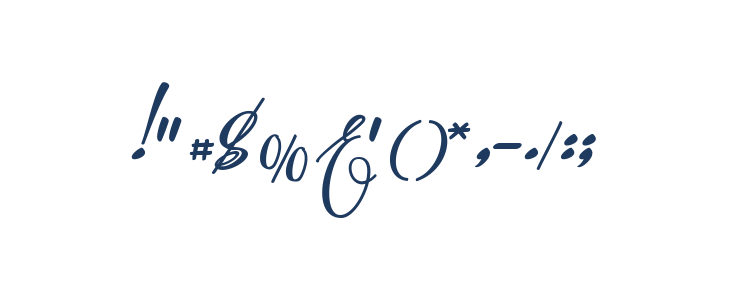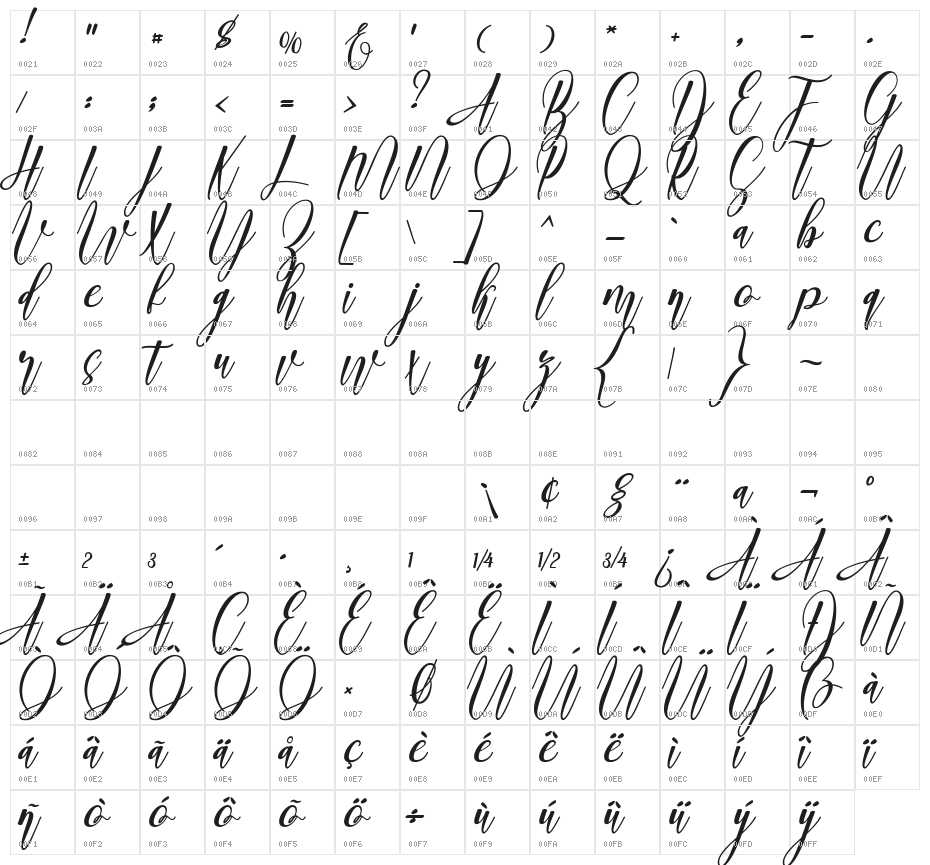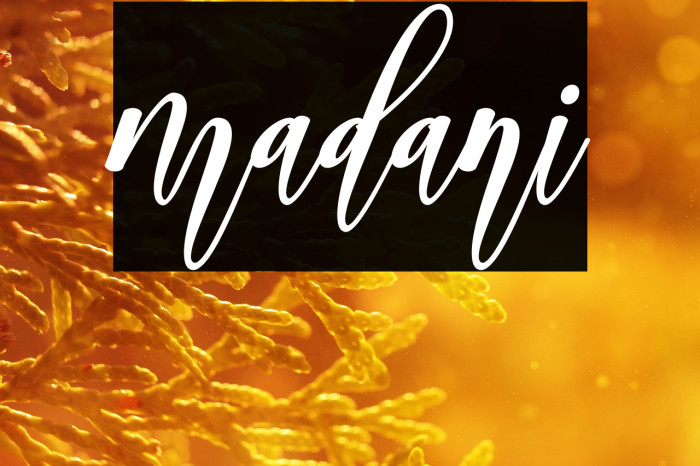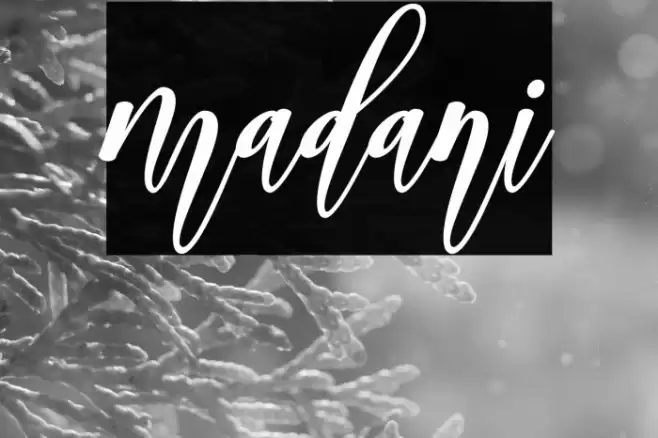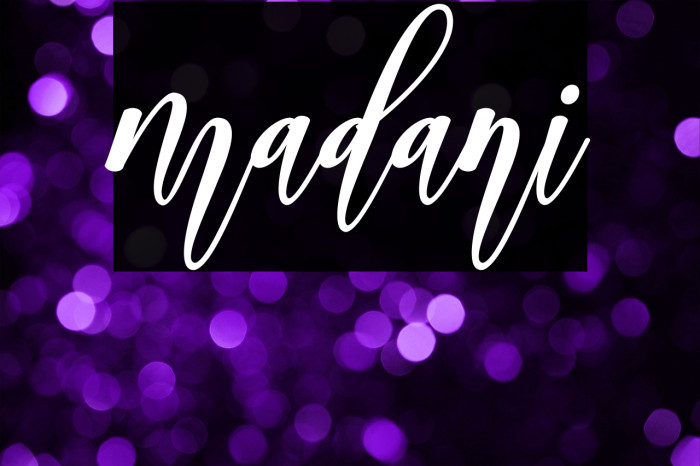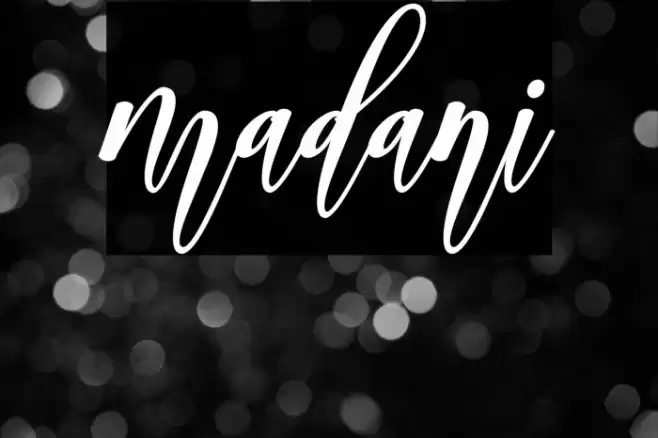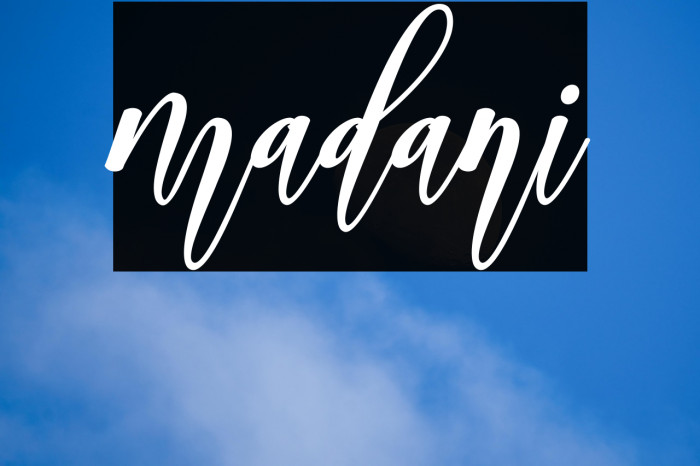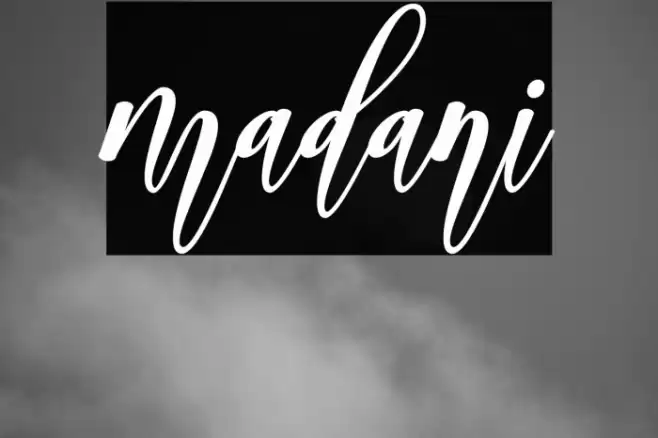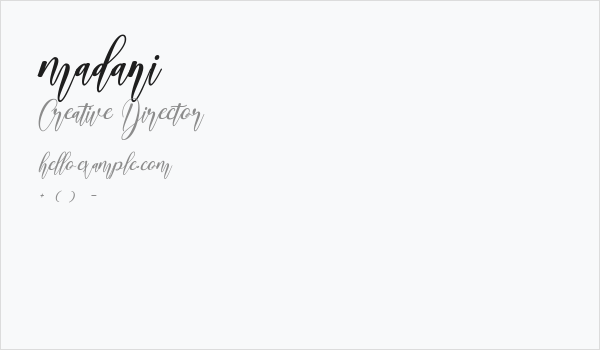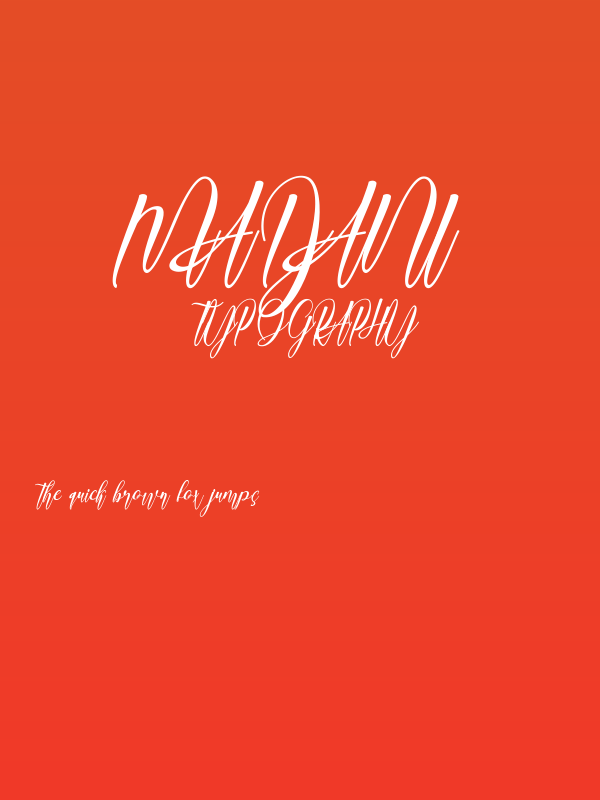
madani Font
madani Description
This font exhibits a dynamic and elegant script style, characterized by its fluid, cursive strokes and a sense of movement. The letters are interconnected, creating a seamless flow that is both sophisticated and artistic. The uppercase letters are tall and slender, with exaggerated loops and swirls, while the lowercase letters maintain a consistent rhythm and balance. The numerals and special characters complement the overall aesthetic, adding to the font's versatility. This font is ideal for projects that require a touch of elegance and creativity, such as invitations, branding, and decorative designs.
| Overall Style | Elegant, Artistic |
| Use Case | Headlines, Invitations, Branding |
| Proposed Projects | Ideal for wedding invitations, branding, logos, and decorative designs. |